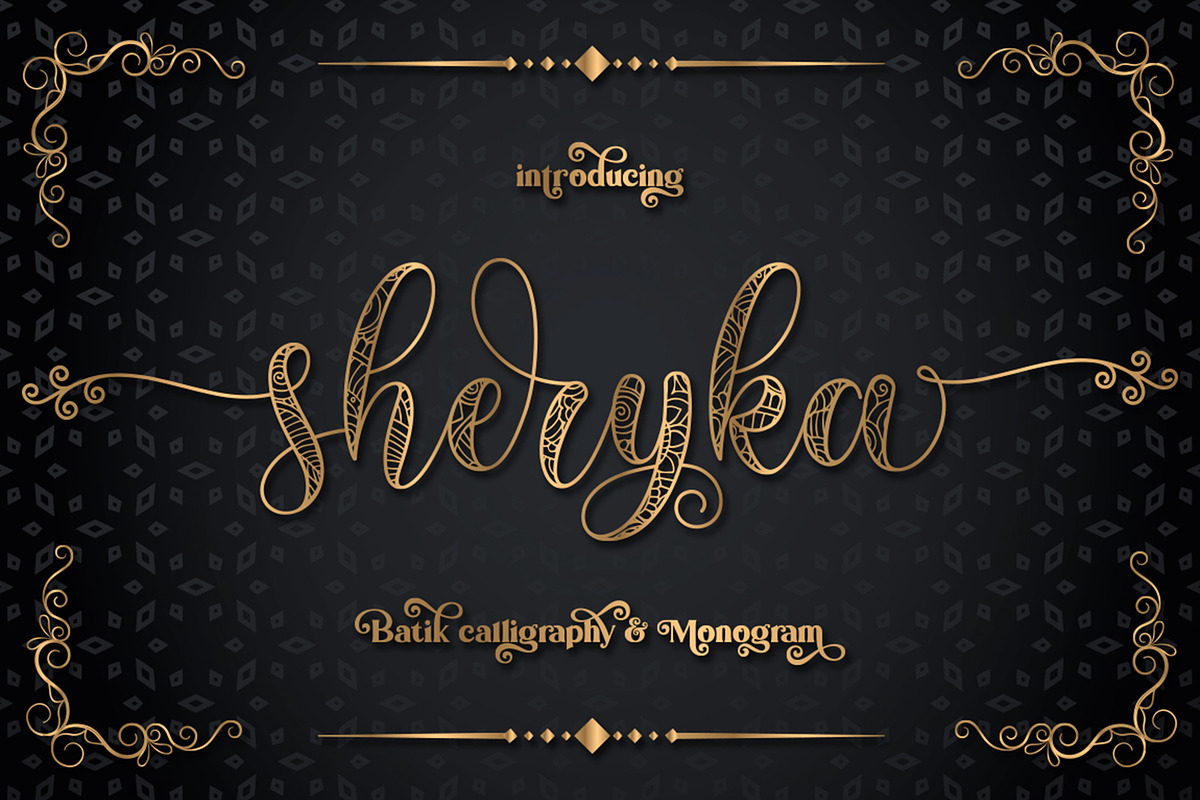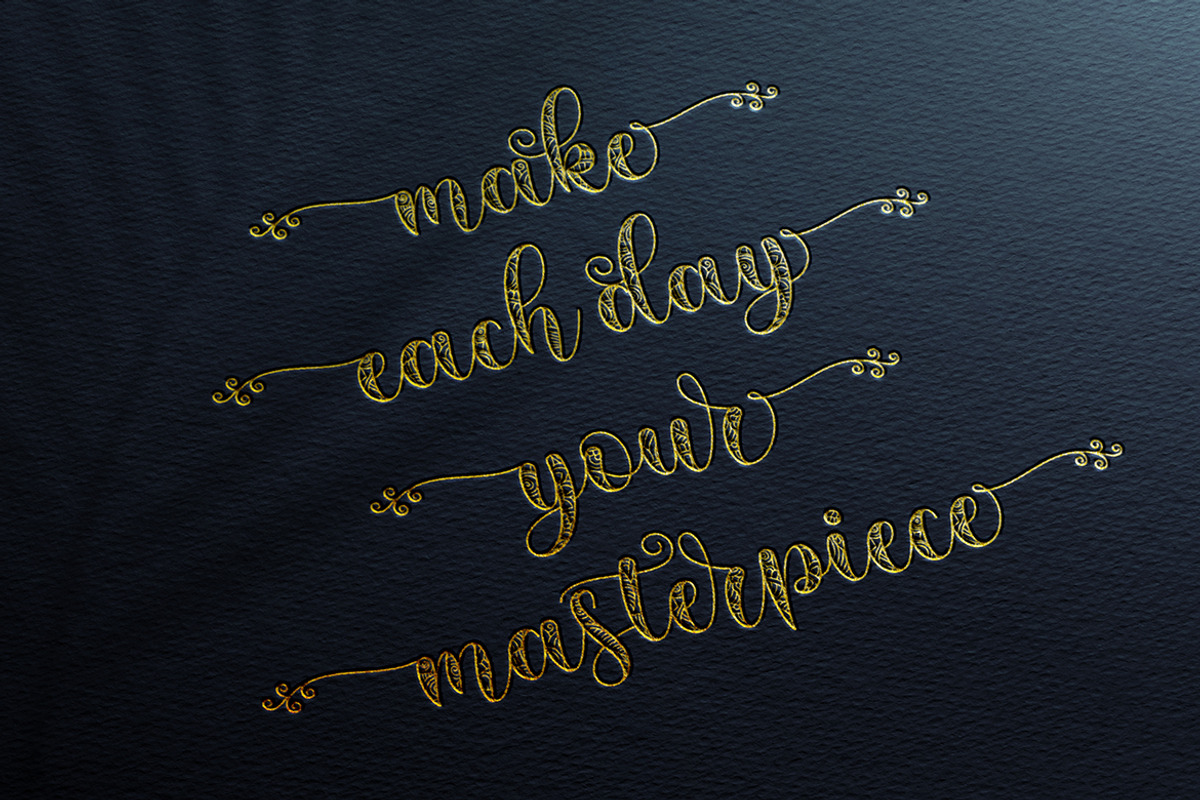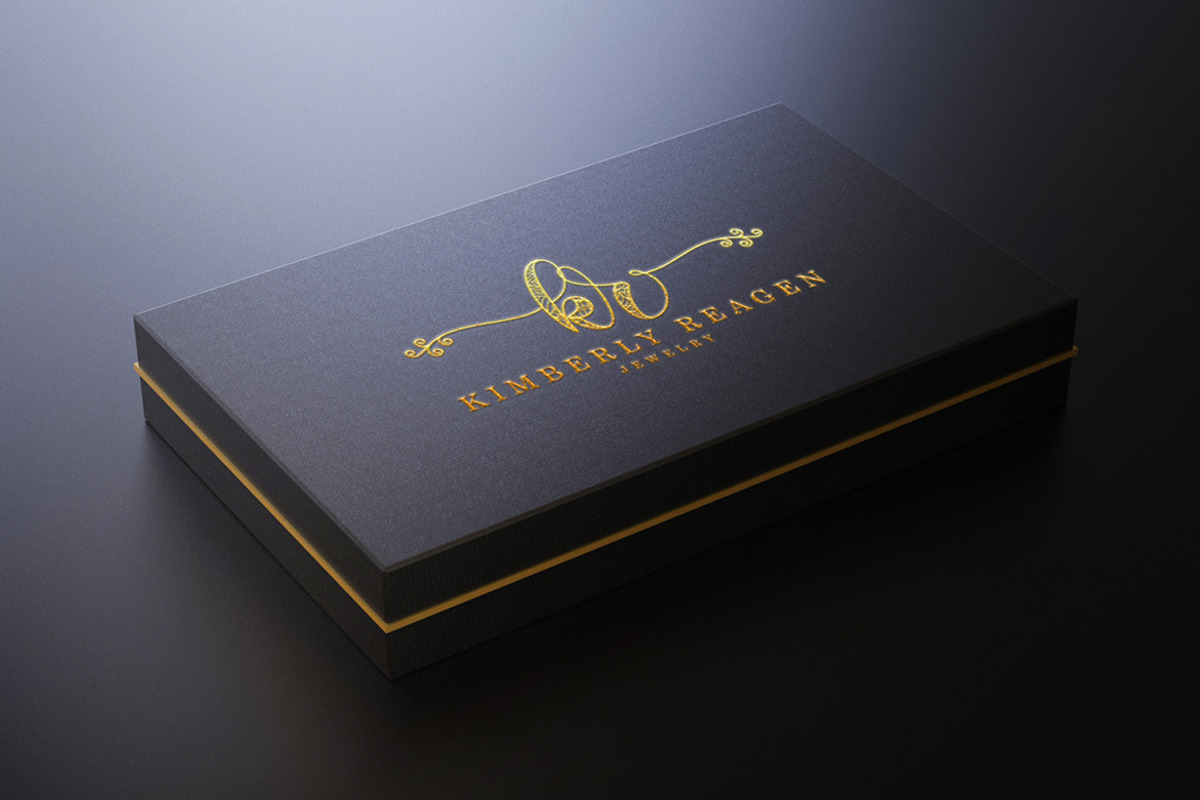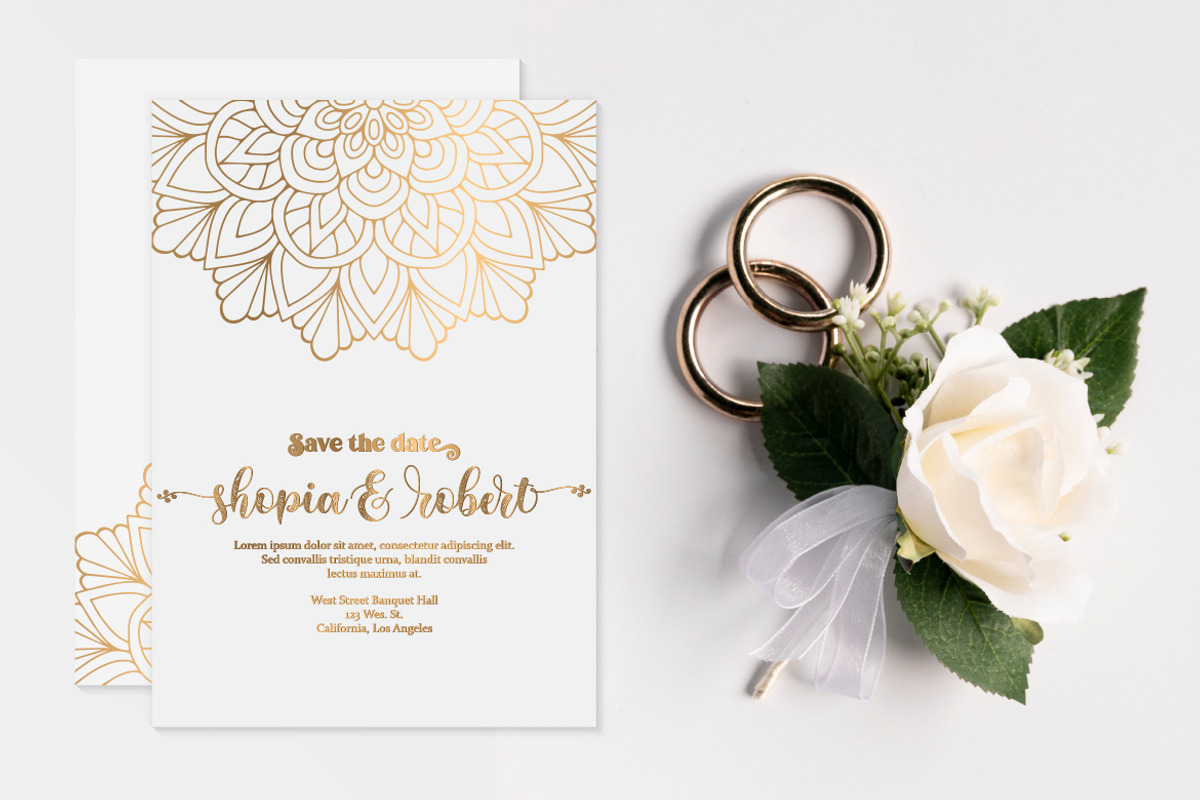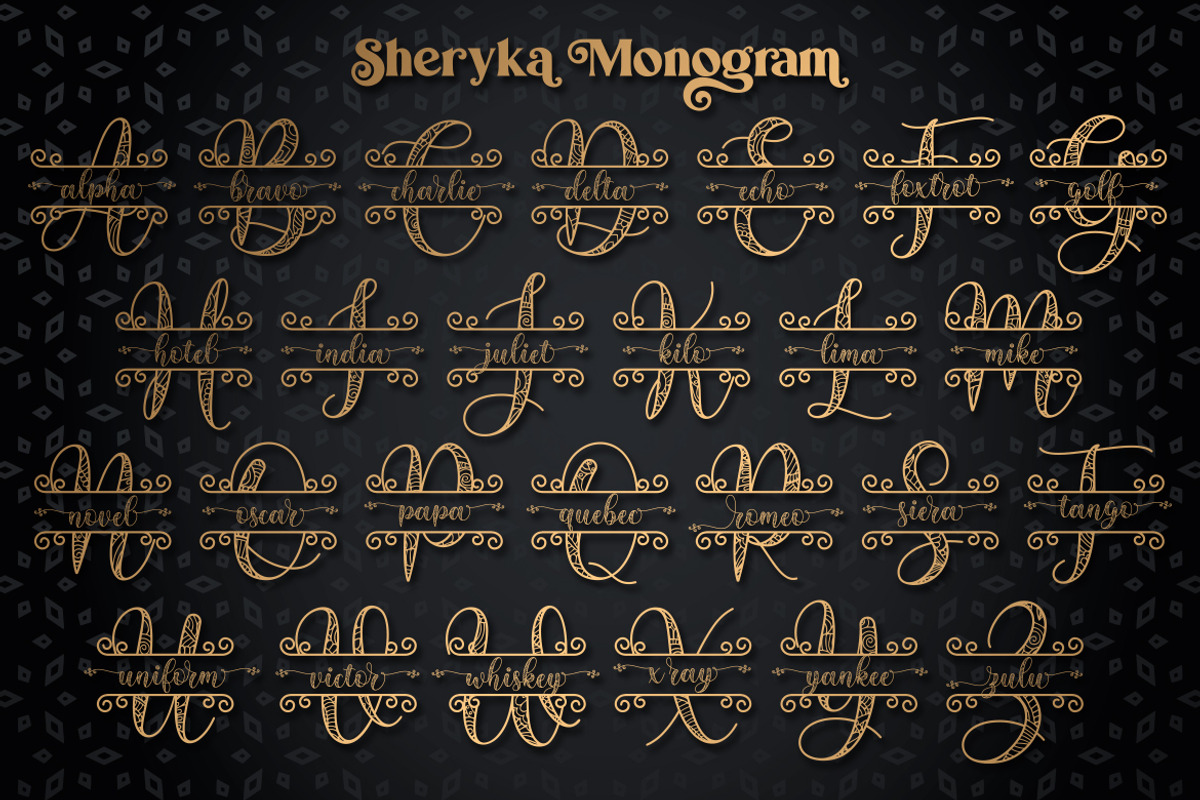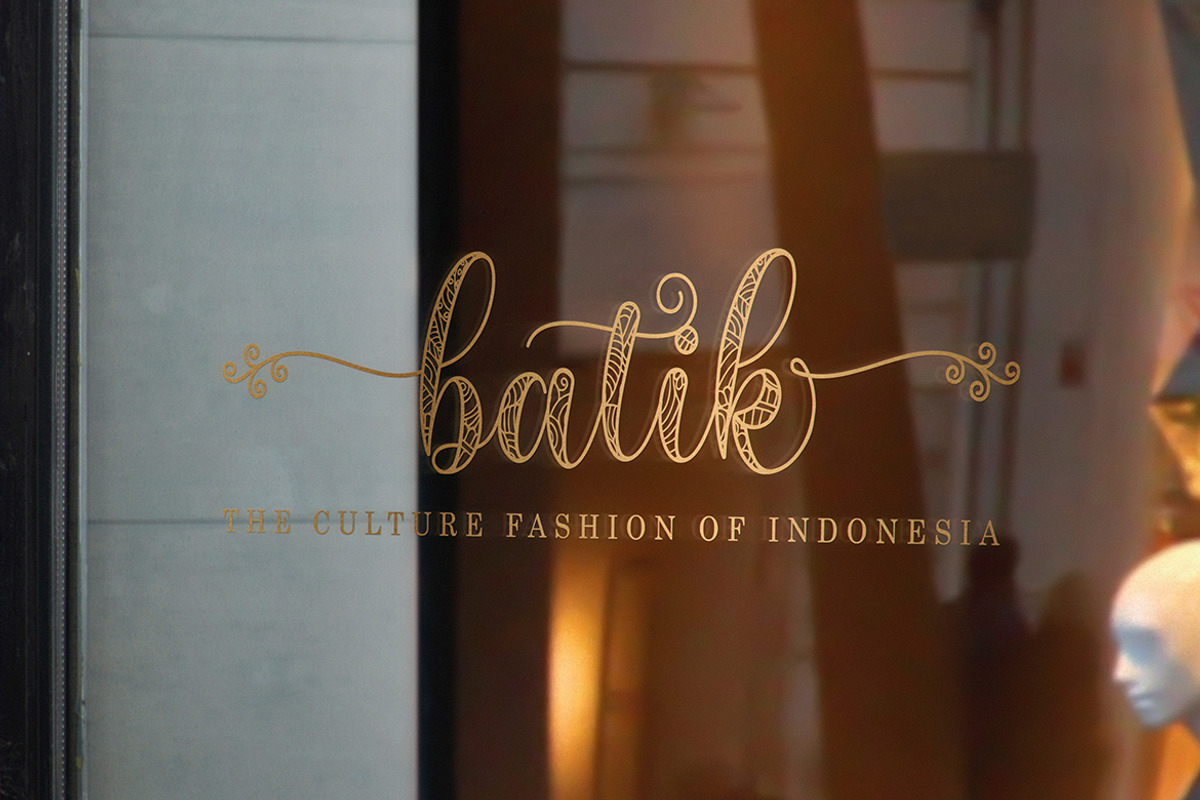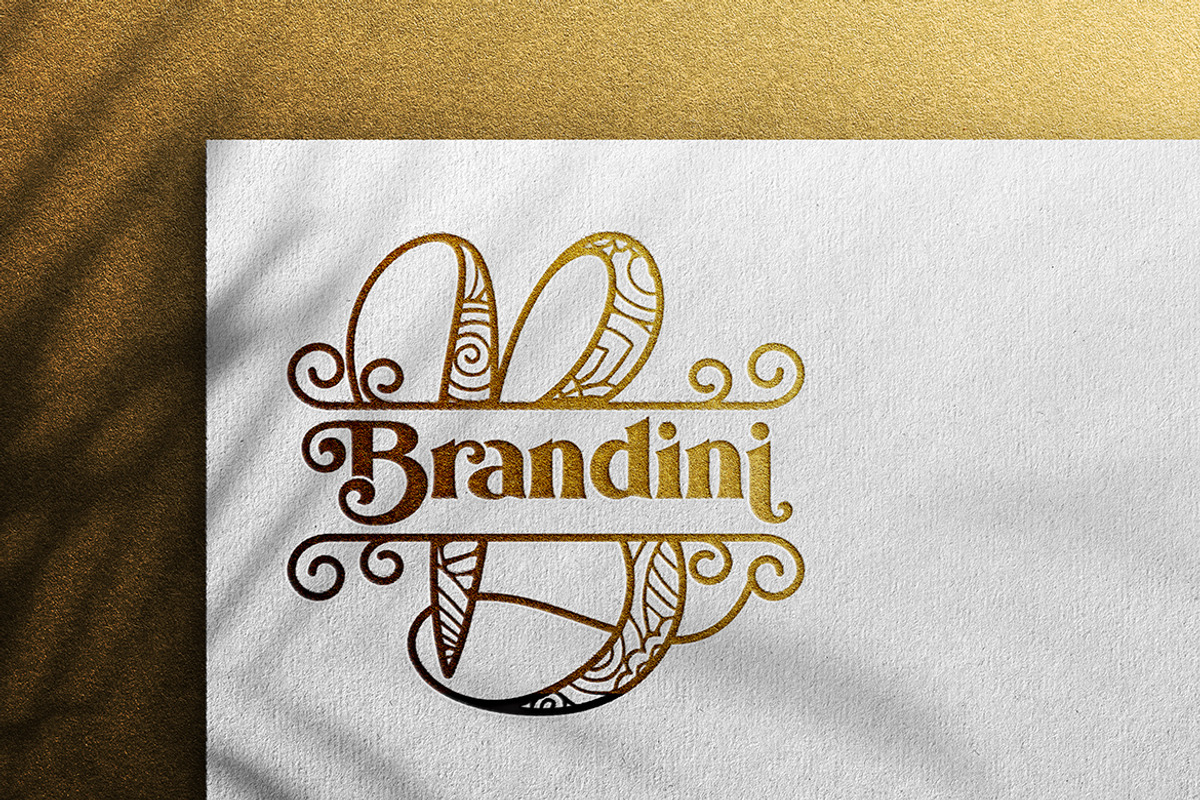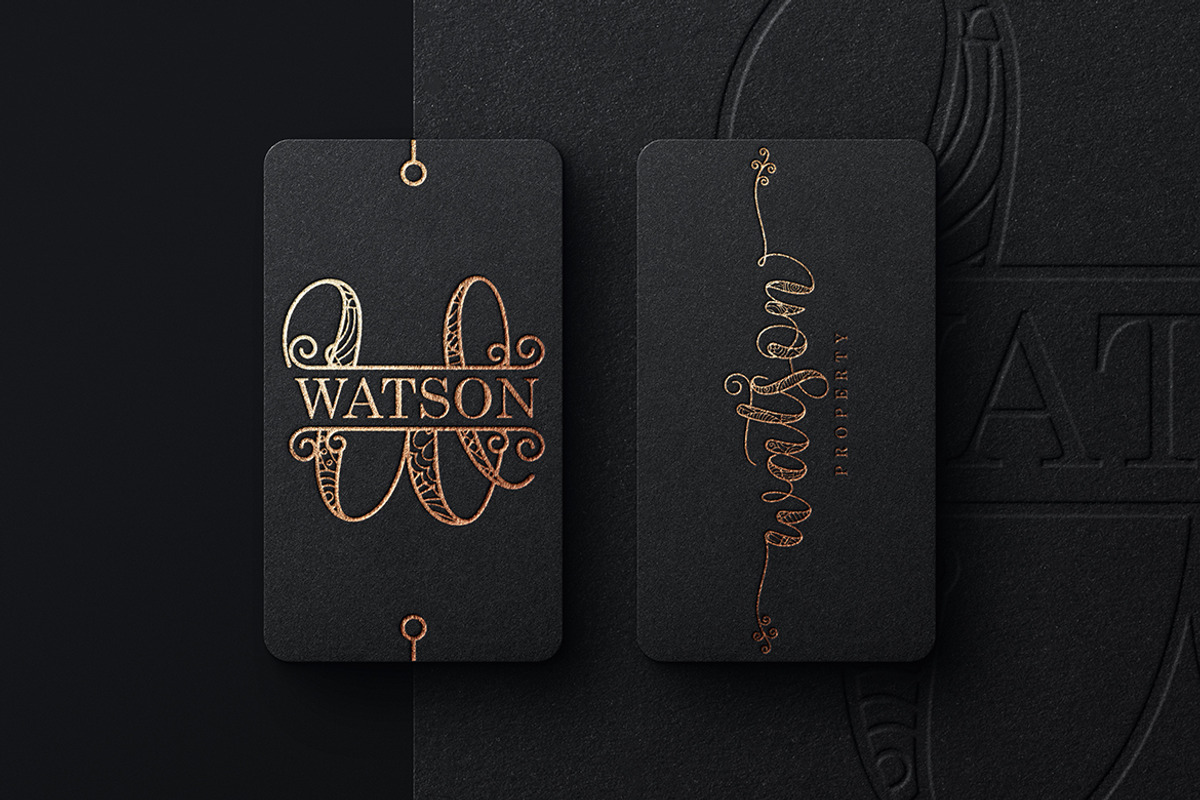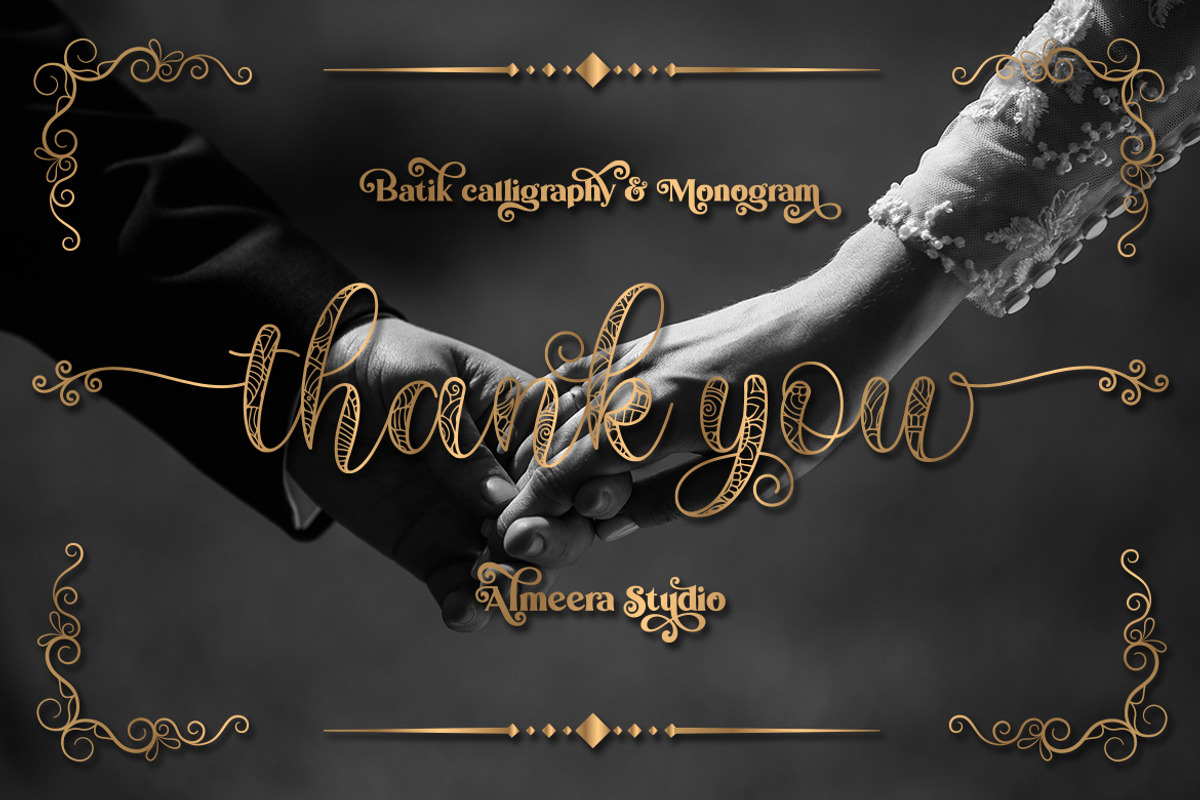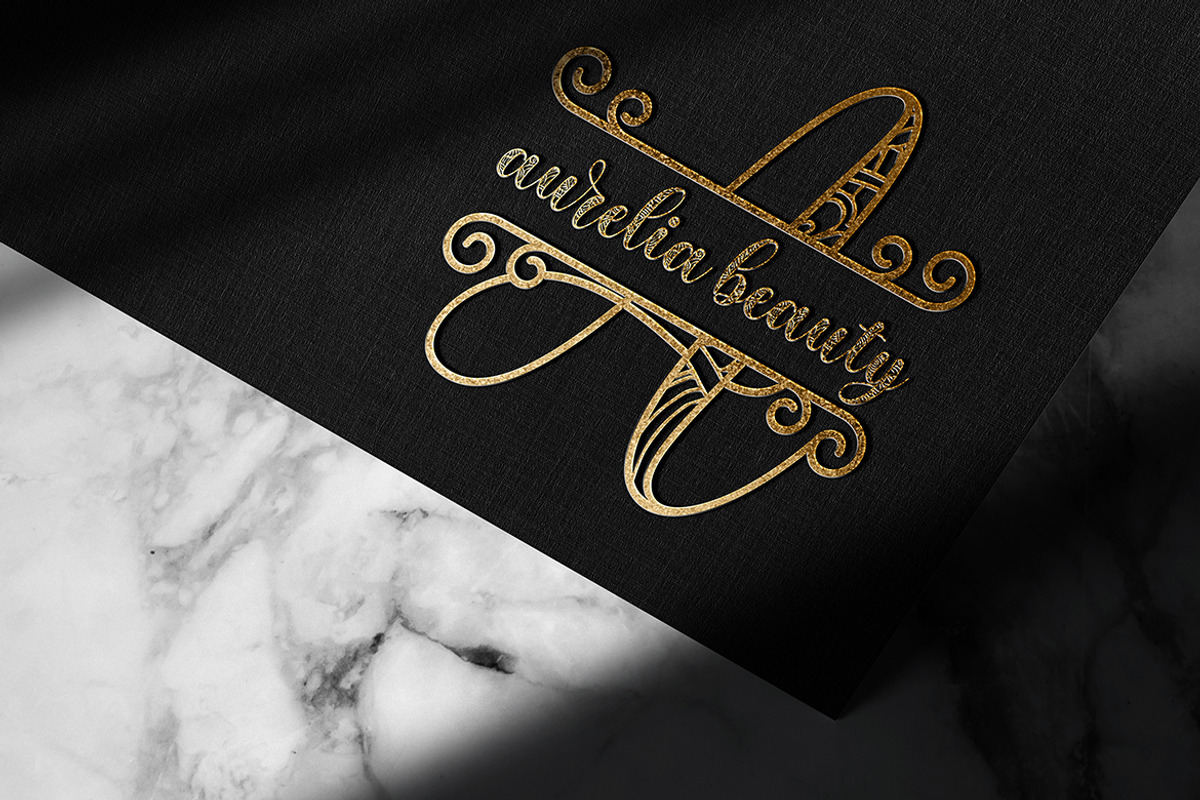
Sherika | Batik Calligraphy
Sherika batik calligraphy is a beautiful calligraphy font, inspired by batik cloth from Indonesia. with many alternative styles, begining and ending swash. This font looks natural, luxurious, elegant and perfect for extraordinary projects. Equipped with monogram fonts and split monogram fonts, it is suitable for various products such as invitations, product packaging, offers, product designs, crafts, labels, photography, watermarks, logos & branding, etc.